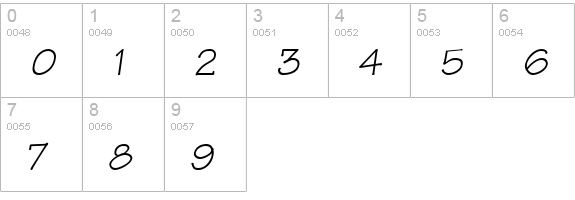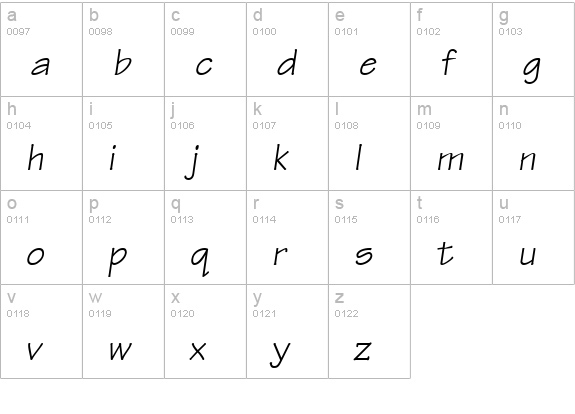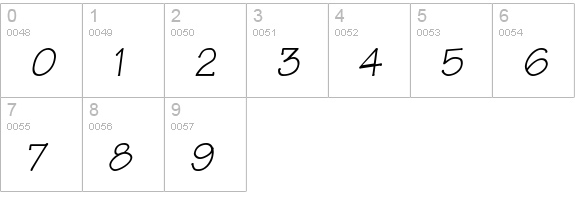
Manual SSi Italic Font Details
Manual SSi Italic is a distinctive, italic variant in the Manual typeface family \xE2\x80\x94 well suited to design and typography projects.
Introducing Manual SSi Italic, a stunning font that embodies elegance and sophistication. Its sleek and slanted design adds a touch of modernity to any project, making it perfect for those seeking a contemporary yet refined look. With its fluid curves and graceful strokes, Manual SSi Italic effortlessly captivates attention and brings a sense of sophistication to any typographic layout. This font offers versatility like no other, as it seamlessly blends into various design styles and applications. Whether you're creating a logo, designing a website, or crafting a poster, Manual SSi Italic adapts effortlessly, enhancing the overall visual impact. But what makes Manual SSi Italic truly exceptional is that it is available for free. Yes, you heard that right! This exquisite font is freely available to download at FontsMarket.com, ensuring that its beauty can be enjoyed by all without any cost. Now, you can elevate your designs without breaking the bank. So why wait? Take advantage of this incredible opportunity and enhance your creative projects with Manual SSi Italic. Download it now at FontsMarket.com and experience the perfect blend of elegance, versatility, and affordability.